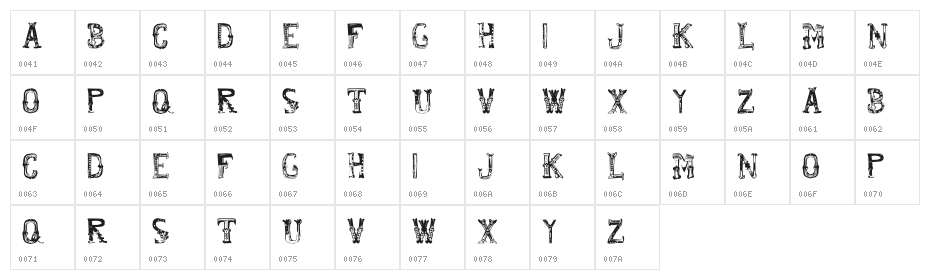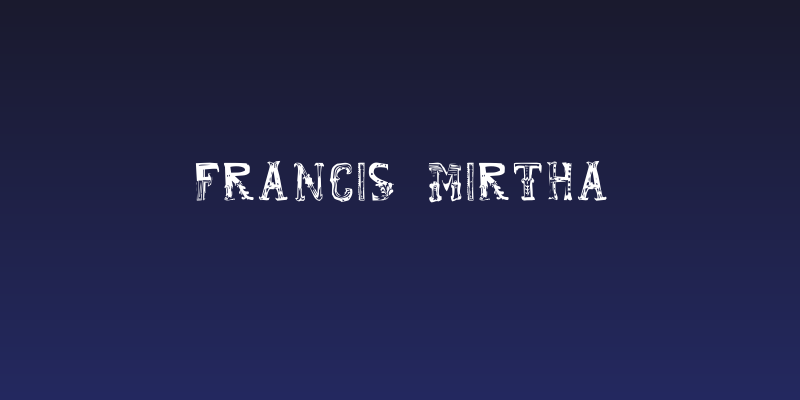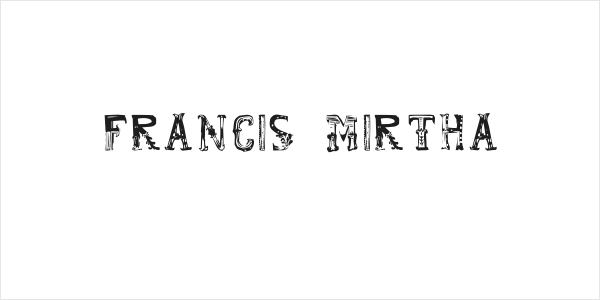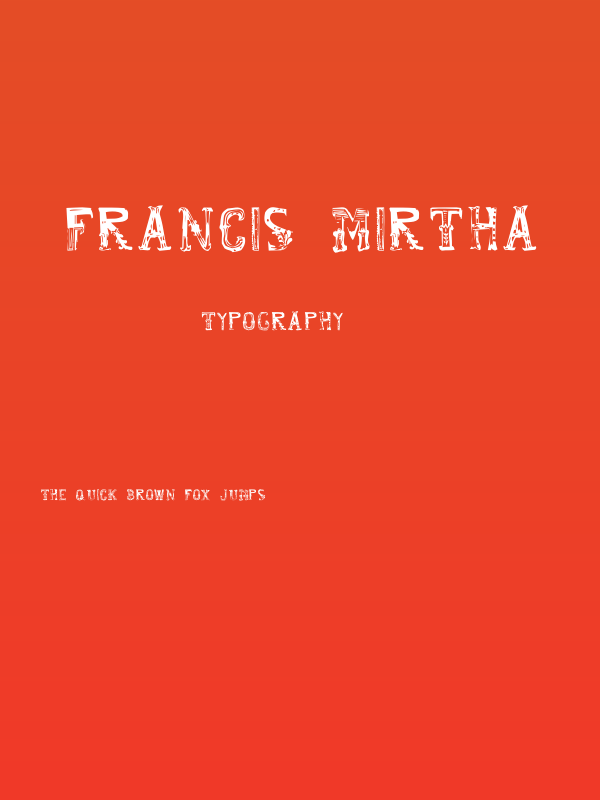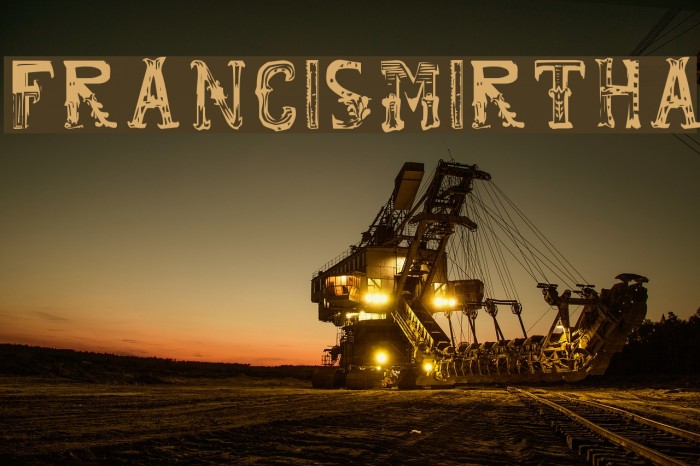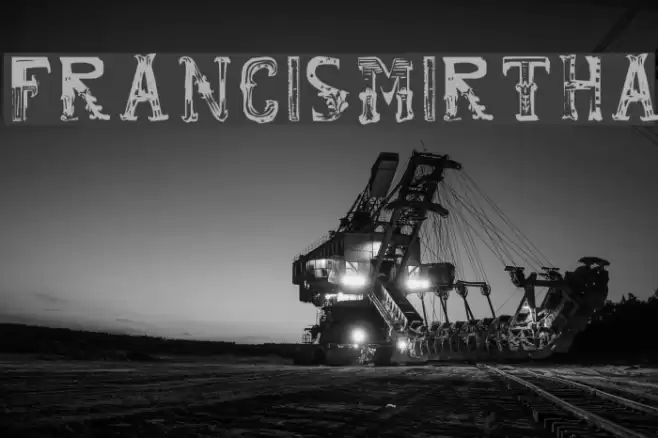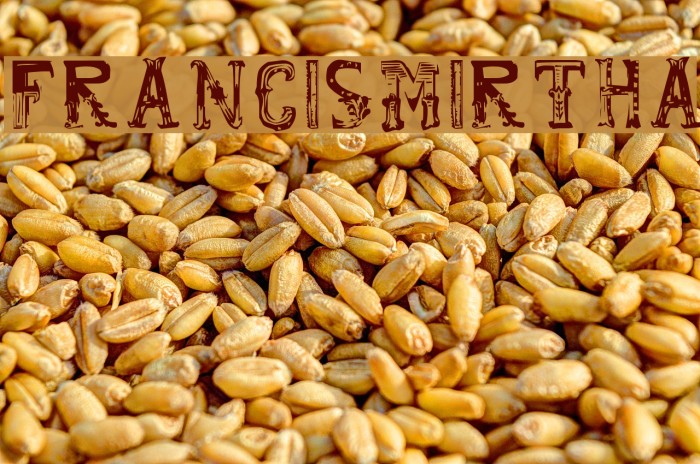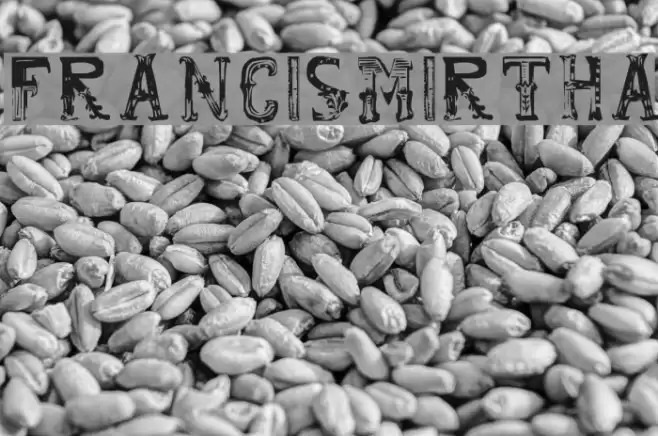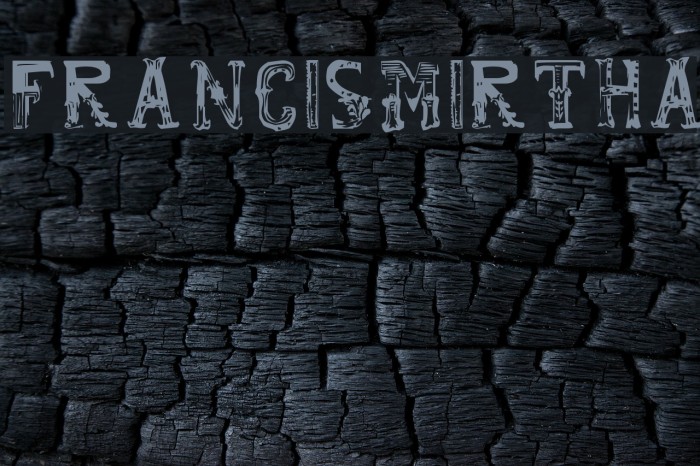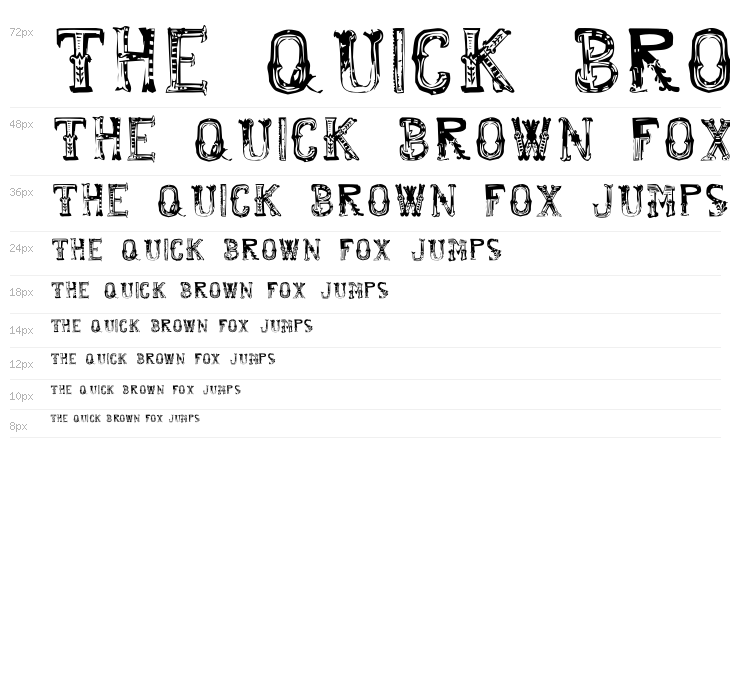
francis_mirtha Font
francis_mirtha Description
This font is a highly decorative and artistic typeface that features a unique blend of intricate patterns and bold strokes. Each character is adorned with elaborate designs, giving it a distinct and eye-catching appearance. The uppercase letters are particularly striking, with varying line thicknesses and ornamental elements that create a sense of movement and flair. The lowercase letters maintain the same decorative style, ensuring consistency throughout the typeface. The numbers and special characters are equally detailed, making them suitable for creative and artistic projects. This font is perfect for designs that require a touch of elegance and creativity, such as posters, invitations, and branding materials.